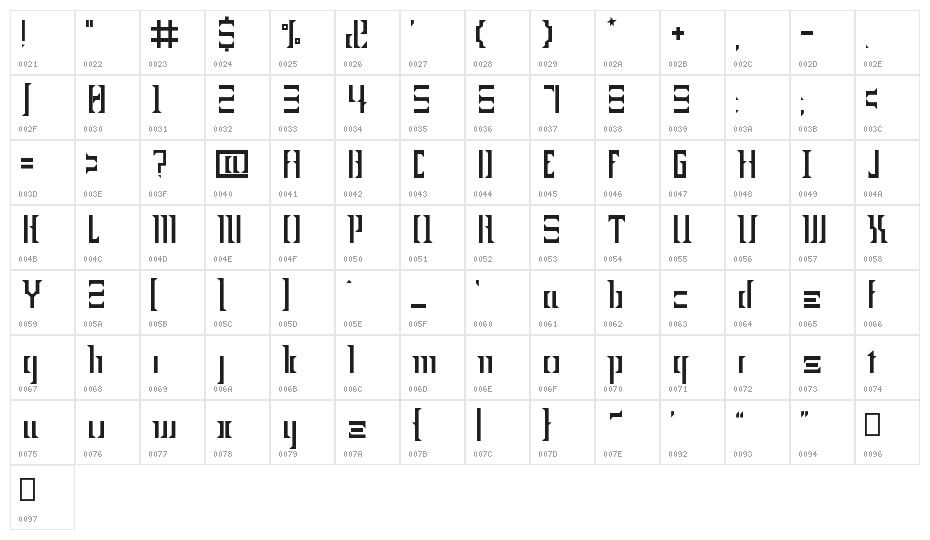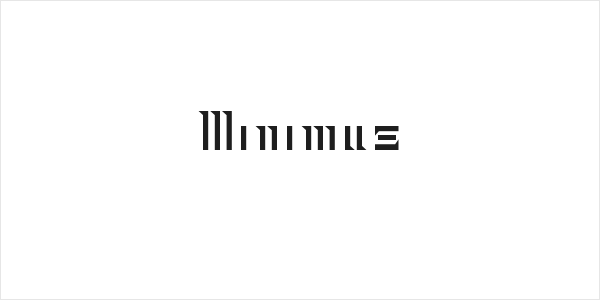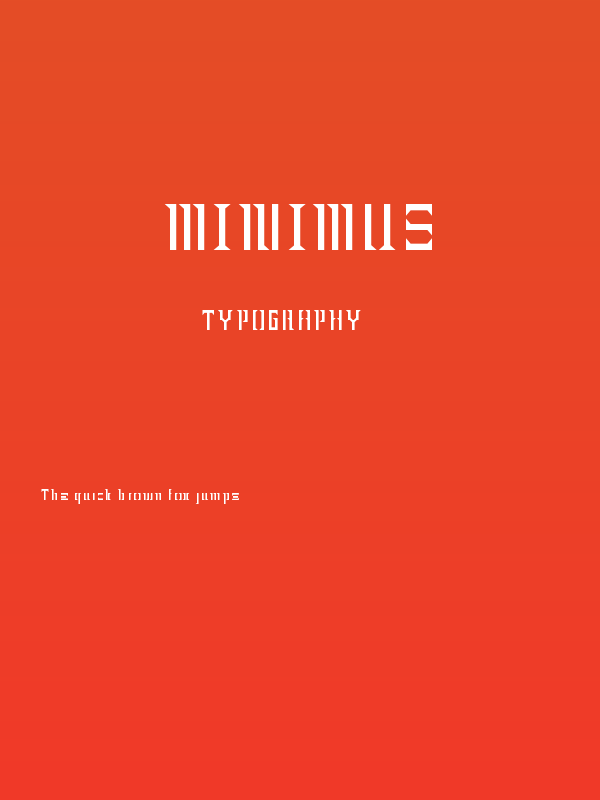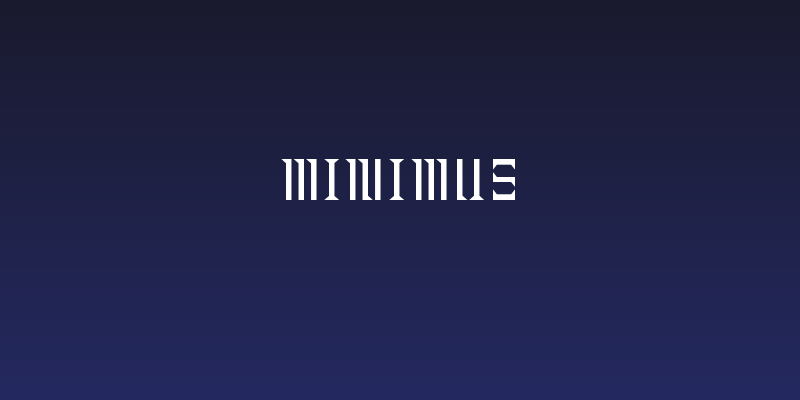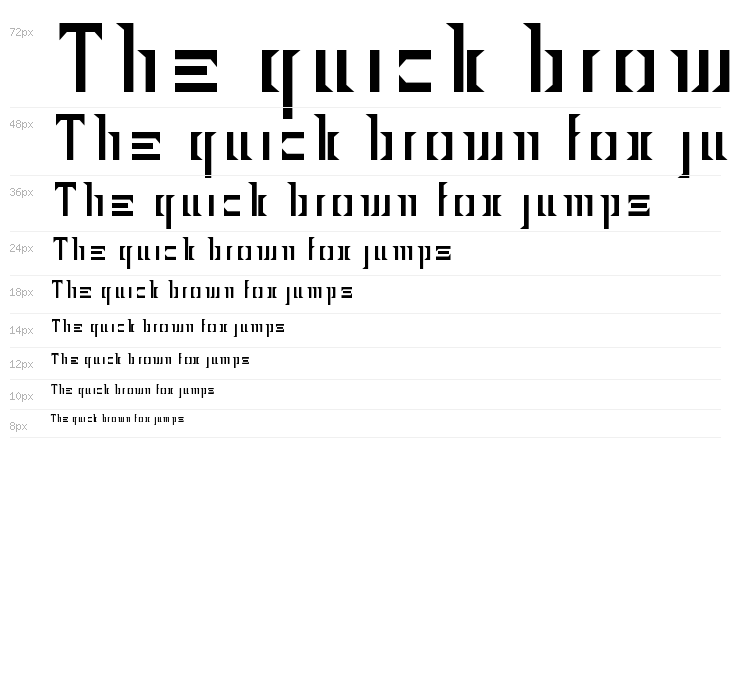
Minimus Font
Minimus Description
This font features a bold, geometric design with sharp angles and a futuristic aesthetic. The uppercase letters are characterized by their blocky, angular shapes, giving them a strong and commanding presence. The lowercase letters maintain a similar style, with consistent angular cuts and a uniform height that complements the uppercase set. Numbers are equally bold and angular, ensuring readability while maintaining the font's unique style. Special characters are designed to match the overall geometric theme, providing a cohesive look across all glyphs. This font's distinct style makes it ideal for projects that require a modern and edgy appearance.
| Proposed Projects | Ideal for sci-fi themed designs, video game interfaces, technology branding, and modern posters. |